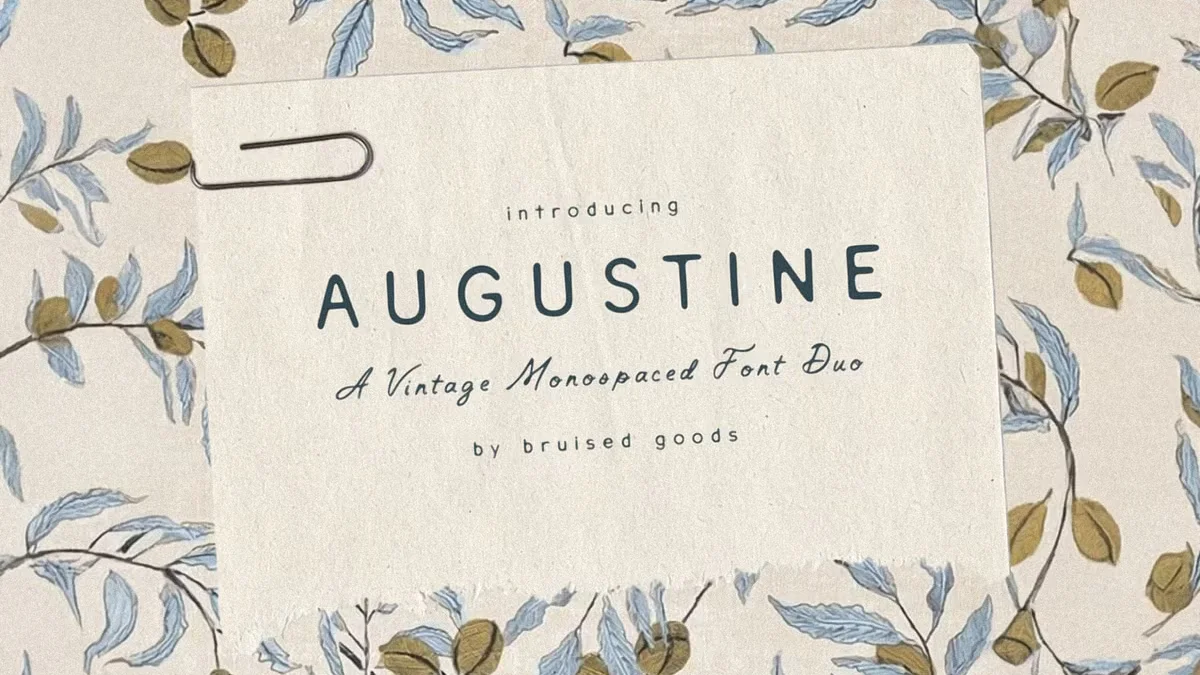
Discover the Augustine Font Duo and Add Timeless Vintage Charm to Your Designs.
The Augustine font duo, designed and published by the talented folks at Bruised Goods, isn’t just another vintage typeface. It’s a little piece of history, bottled and digitized. Inspired by the unique character of the nation’s oldest city, Saint Augustine, Florida, this font duo carries a distinct vintage, monospaced charm. Think old typewriters, classic signage, and the enduring appeal of handcrafted quality. Bruised Goods has truly captured a specific essence with this font duo. Let’s explore what makes this font duo a compelling choice for your creative toolkit.
What Makes Augustine Stand Out? The Vintage Monospaced Appeal
So, what exactly is Augustine? At its core, it’s a vintage-inspired monospaced font duo. Now, what does “monospaced” mean for your designs? Unlike proportional fonts, where letters take up varying amounts of horizontal space (like ‘i’ being narrower than ‘m’), each character in a monospaced font occupies the exact same width. This creates a wonderfully consistent, often slightly quirky, and remarkably clear look. It harkens back to the days of typewriters and early computing, giving the font duo an authentic retro vibe.
The “vintage” aspect isn’t just a label; it’s woven into the very fabric of its letterforms. Bruised Goods drew inspiration from Saint Augustine, Florida – a city steeped in history, with layers of Spanish colonial architecture, coastal influences, and a unique, enduring spirit. You can almost feel that sense of time and place within the strokes and lines of the Augustine typeface. It’s not sterile or overly clean; it possesses a subtle character, a human touch that feels authentic and grounded. This makes the Augustine font duo incredibly versatile for projects aiming for a nostalgic, classic, or handcrafted feel.
The Power of Two: Exploring the Augustine Duo Dynamic
Why a “duo”? While the prompt doesn’t specify two distinct styles (like Regular and Bold, or Sans and Script), the term “duo” often implies a pairing designed to work harmoniously. Perhaps it includes subtle variations, alternative characters, or simply represents the completeness of the character set for versatile use. The beauty of the Augustine font duo lies in its cohesive nature. Whether you’re using its uppercase, lowercase, numbers, or symbols, they all belong to the same visual family.
This cohesiveness is key. It means you can use the typeface for both headlines and supporting text (within reason, considering its monospaced nature) and maintain a consistent aesthetic. Imagine crafting a logo with the strong uppercase letters of Augustine, then using its lowercase and numbers for contact information or taglines. The result is unified and professional, yet full of personality. It’s this inherent synergy within the Augustine family that elevates it beyond a simple font file. It becomes a design system in miniature. Have you considered how a font duo could streamline your branding projects?
Augustine Under the Hood: Technical Specifications
- Glyph Count: It boasts a total of 360 glyphs. This is quite comprehensive!
- Character Set: This includes:
- Uppercase Characters (A-Z)
- Lowercase Characters (a-z)
- Numbers (0-9)
- Symbols & Punctuation (all the essentials and likely some unique extras reflecting its vintage style)
This robust character set and broad language support ensure Augustine is not just stylish but also highly functional for a wide range of projects and audiences.
Where Can You Use the Augustine Font Duo?
The vintage monospaced style of Augustine lends itself beautifully to a diverse array of applications. Bruised Goods suggests using it for:
- Logos: Its distinct character makes the font duo perfect for creating memorable, retro-inspired logos and wordmarks.
- Branding & Packaging: Need to give a product a handcrafted, artisanal, or heritage feel? Augustine excels here. Think coffee bags, craft beer labels, or boutique packaging.
- Menus & Signage: Restaurants, cafes, and bars aiming for a classic or rustic vibe will find that Augustine adds the perfect touch to menus and signs. Its clarity is a bonus.
- Apparel & Merchandise: T-shirts, caps, tote bags – the font duo can give merchandise a cool, vintage edge that stands out.
- Invitations & Cards: For weddings, parties, or events with a retro or historical theme, Augustine sets the right tone immediately.
- Album Covers & Posters: Capture a specific musical genre’s feel (like folk, indie, or classic rock) or create eye-catching flyers and posters.
Ultimately, selecting a font is about finding the right voice for your message. The Augustine font duo offers a compelling voice – one that speaks of history, craftsmanship, and timeless style. It’s a tool waiting to add that perfect vintage touch to your creative endeavors. Could this vintage-inspired typeface be the voice your next design needs?